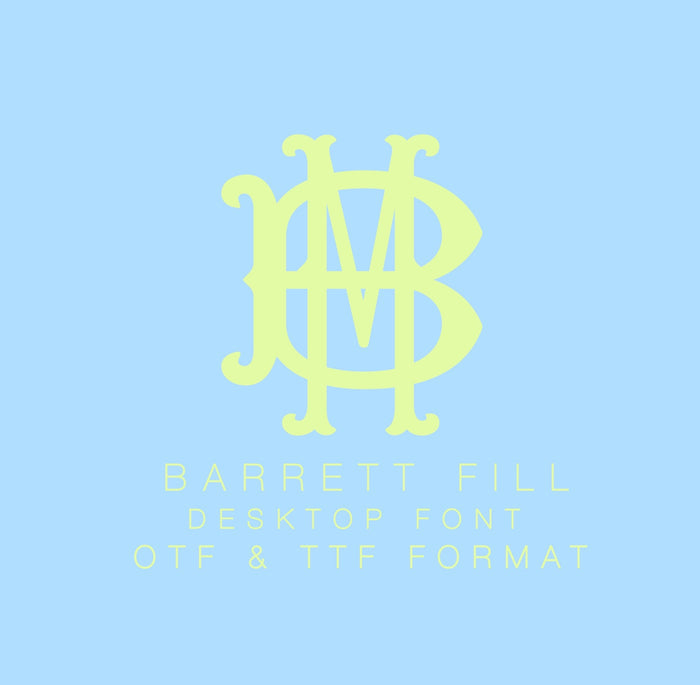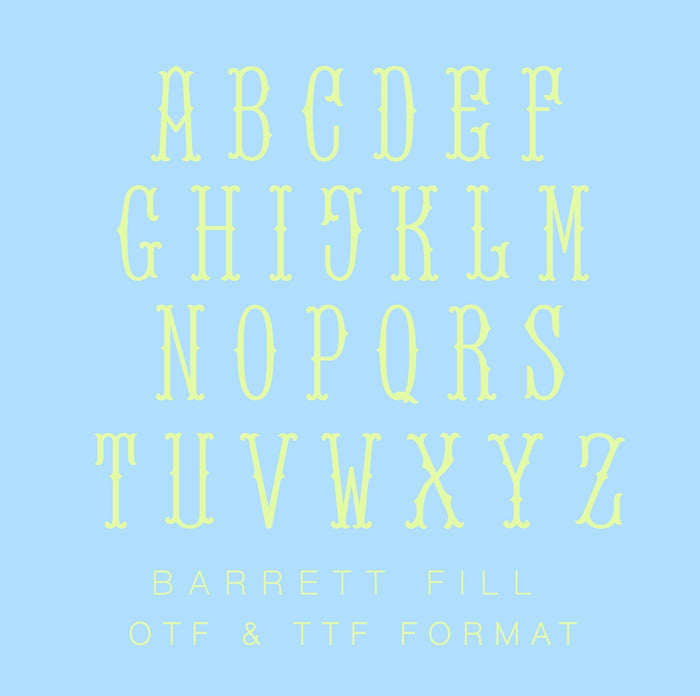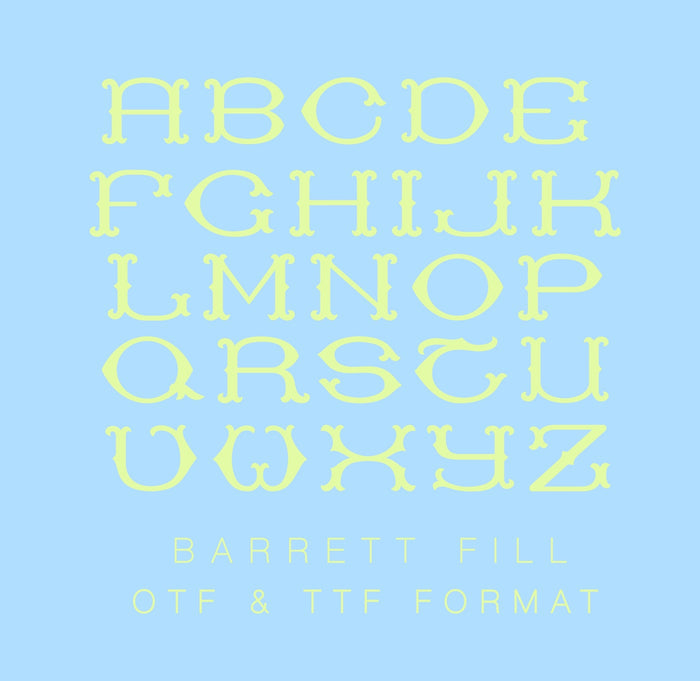
Barrett Fill Desktop Font
The Barrett Monogram Desktop Font is an uppercase monogram font including the letters A-Z in both the taller thin letters and shorter wider letters.
The taller letters are uppercase letters in this font, and the lowercase letters are the shorter wider letters.